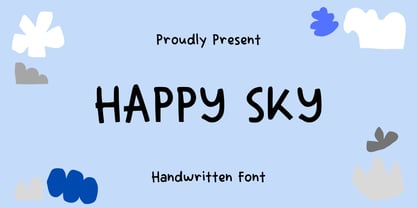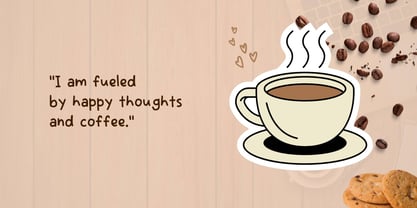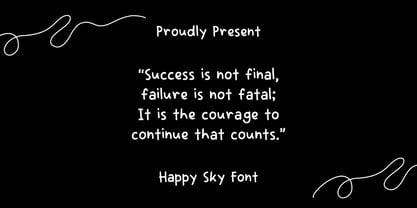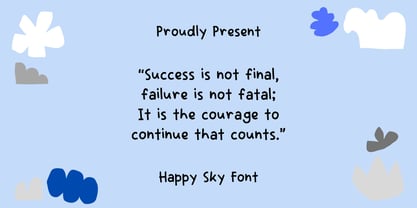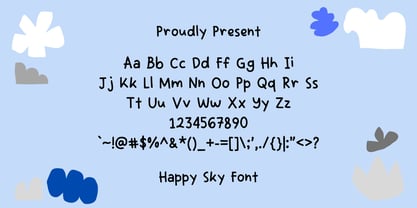
Happy Sky
por Sidkia Fonts
Happy Sky font has a playful, handwritten style that conveys warmth and friendliness. Its rounded edges and irregular letterforms give it a casual, childlike appearance, making it suitable for informal and uplifting content. The spacing between characters is balanced, which maintains legibility while still appearing whimsical and personal. This font is ideal for quotes, greeting cards, children's content, or any design needing a soft, encouraging tone.